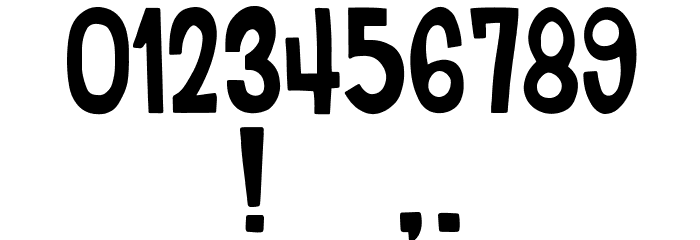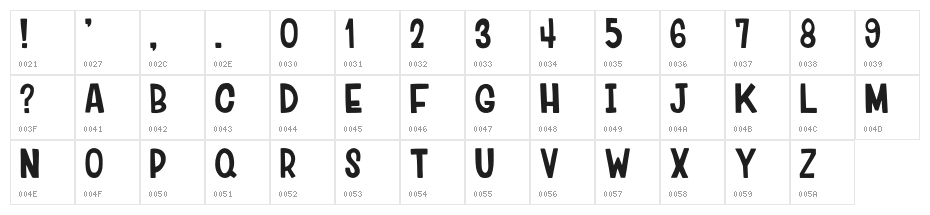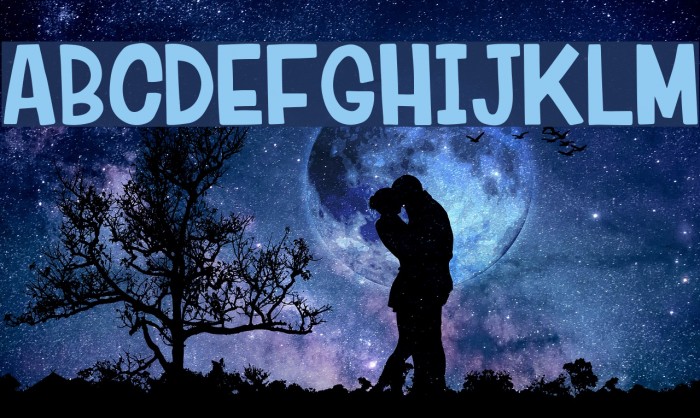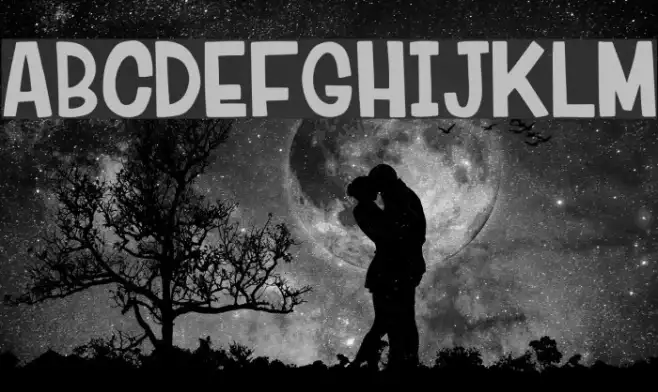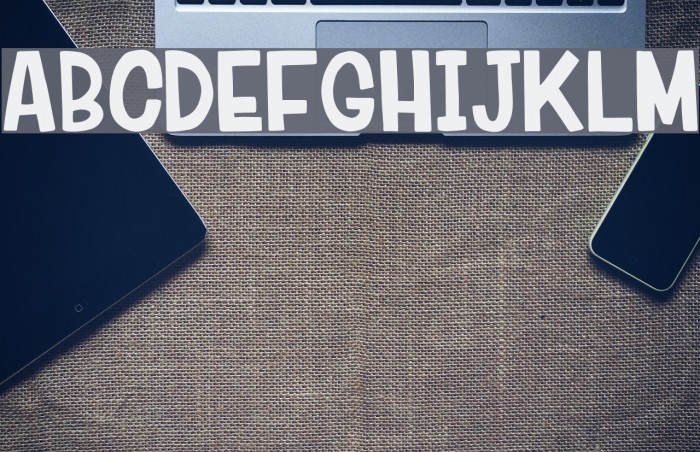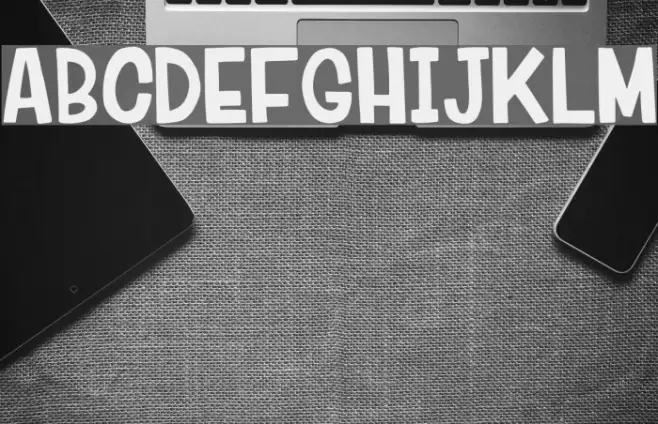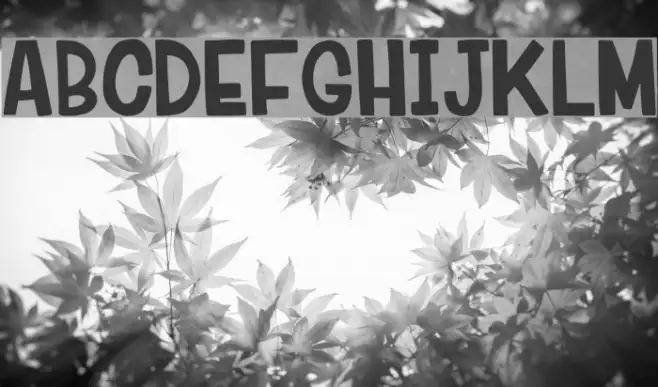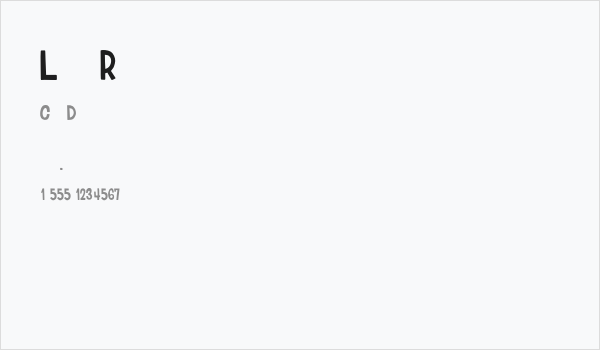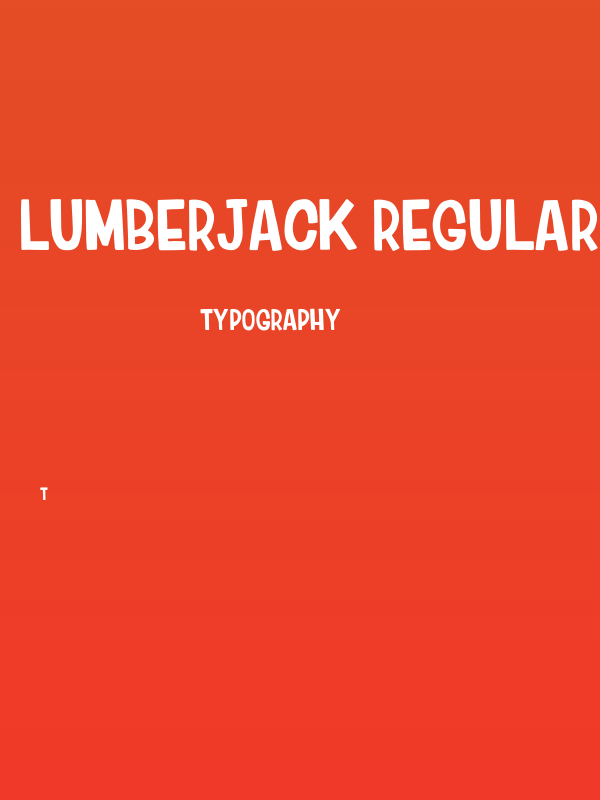
Lumberjack Regular Font
Lumberjack Regular Description
This font features a bold and playful design with a hand-drawn aesthetic. The characters are slightly irregular, giving it a casual and friendly appearance. The uppercase letters are prominent and well-defined, while the numbers and special characters maintain the same whimsical style. The overall look is reminiscent of a handcrafted sign or poster, making it ideal for projects that require a touch of personality and warmth. Its boldness ensures readability, while the unique character shapes add a distinctive flair.
| Overall Style | Playful, Handcrafted |
| Proposed Projects | Ideal for children's books, posters, greeting cards, and branding that requires a friendly and approachable look. |